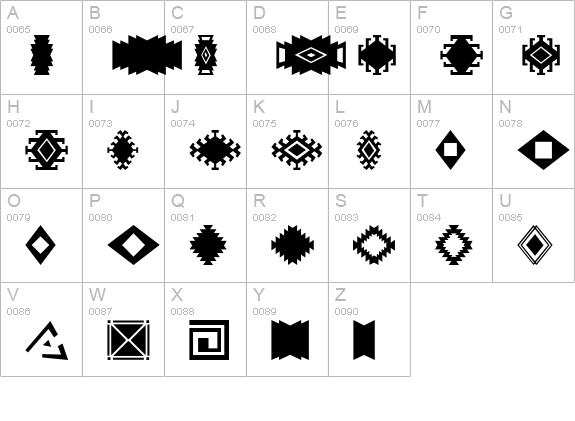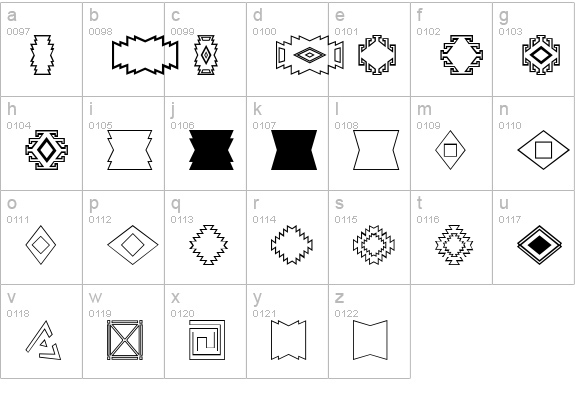
SC Southwest Designs Font Details
SC Southwest Designs is a visually captivating font that effortlessly blends the essence of the Southwest with modern design elements. With its unique and intricate letterforms, this font captures the spirit of the desert, the vibrant colors of Native American art, and the rich cultural heritage of the Southwest. Designed with attention to detail, SC Southwest Designs is perfect for adding a touch of warmth and authenticity to any project. Whether used in logos, headlines, or body text, this font exudes a sense of adventure and intrigue. Each character is meticulously crafted to reflect the essence of the Southwest, making it a standout choice for any creative endeavor. One of the best things about SC Southwest Designs is that it is freely available to download at FontsMarket.com. This means that you can easily incorporate this stunning font into your designs without any hassle. Whether you're a professional designer or a creative enthusiast, this font gives you the freedom to bring your ideas to life with its eye-catching style. With its bold and distinctive appearance, SC Southwest Designs is sure to make a lasting impression. Whether you're creating branding materials for a Southwest-inspired business, designing a poster for a cultural event, or simply looking to add a touch of the Southwest to your personal projects, this font will help you achieve the desired look and feel. Discover the beauty and versatility of SC Southwest Designs today. Download it for free at FontsMarket.com and let your creativity soar.